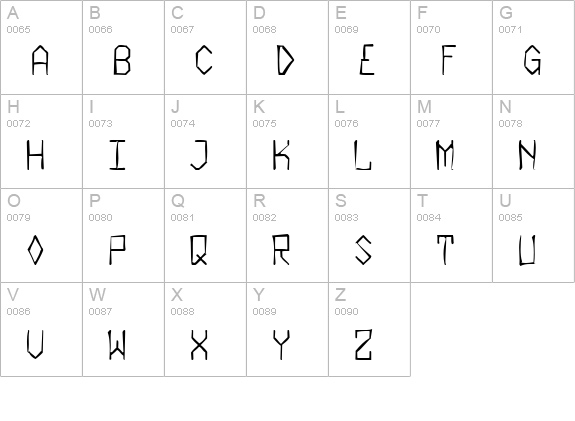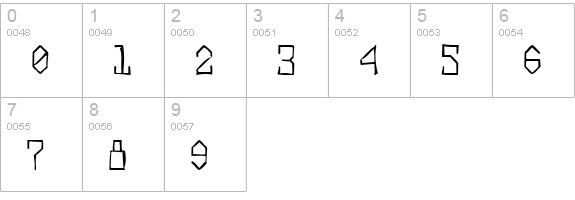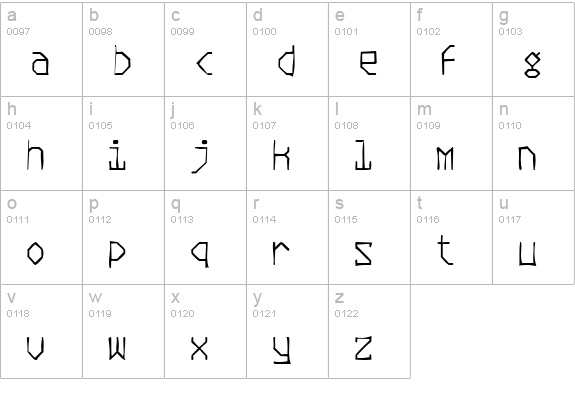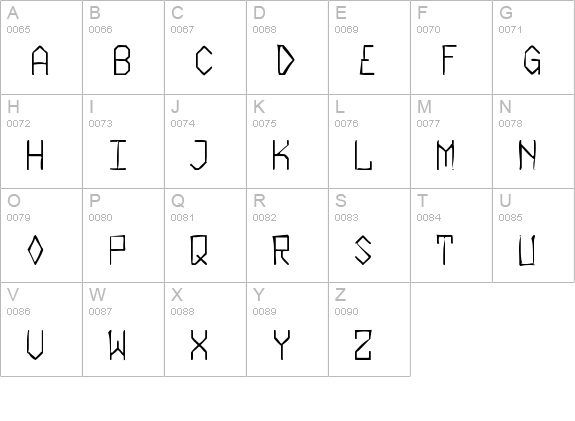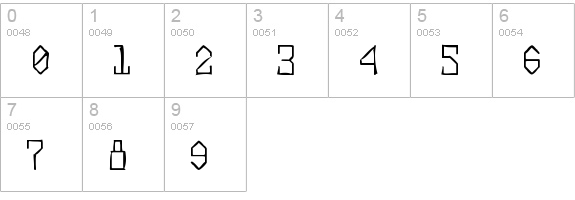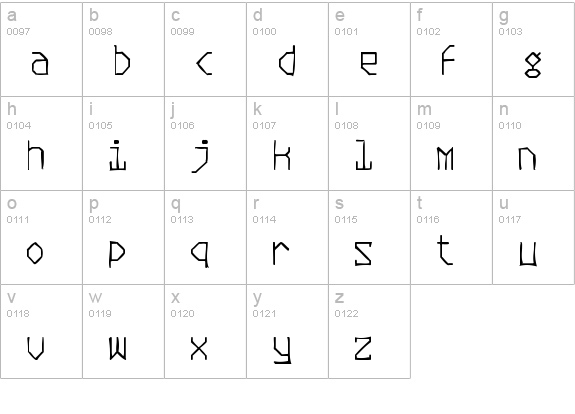
Plasmatic Gaunt font is a captivating and dynamic typeface that exudes a futuristic and edgy vibe. Its sleek lines and sharp angles give it a modern and avant-garde look, making it perfect for projects that require a bold statement. The unique design of this font will draw attention and add a touch of sophistication to any creative work. What makes Plasmatic Gaunt font even more appealing is that it is free to download at FontsMarket.com. This means you can easily access this striking font for your personal or commercial projects without any cost. With its versatility and eye-catching appearance, Plasmatic Gaunt font is sure to elevate your designs and make them stand out from the crowd. Experience the power and impact of this incredible font today by downloading it for free at FontsMarket.com.